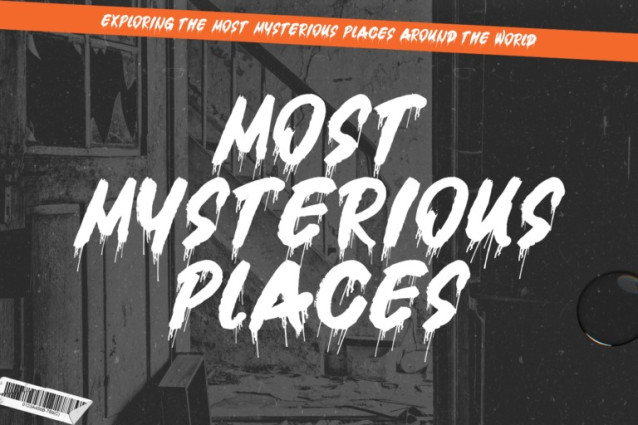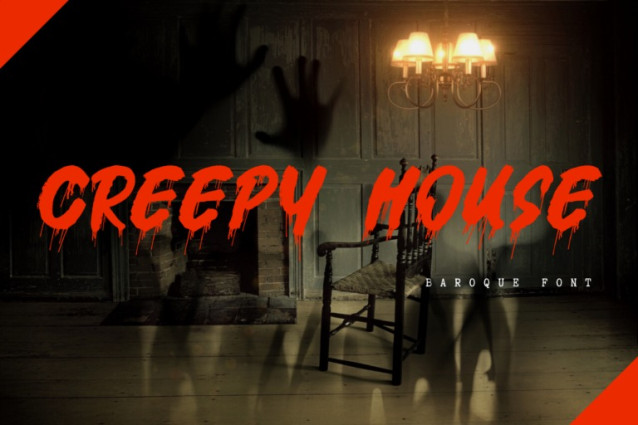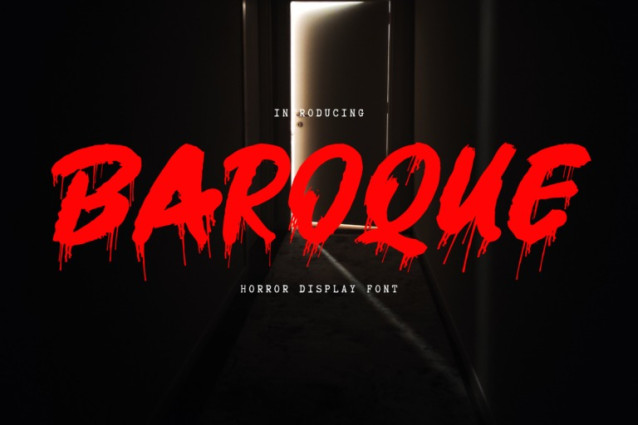
Baroque Font
Baroque Font – Painting Font – A Horror Dripping Brush Display Font, a chilling and aggressive hand-brushed display font oozing with horror. Its rough textures and dripping strokes make every letter scream with tension, fear, and energy. Whether it’s blood, ink, or shadows—this font brings it to life. Perfect for horror movie titles, Halloween posters, thriller book covers, metal band logos, or any spooky branding, Baroque ensures your message leaves a mark… like a slash in the dark.